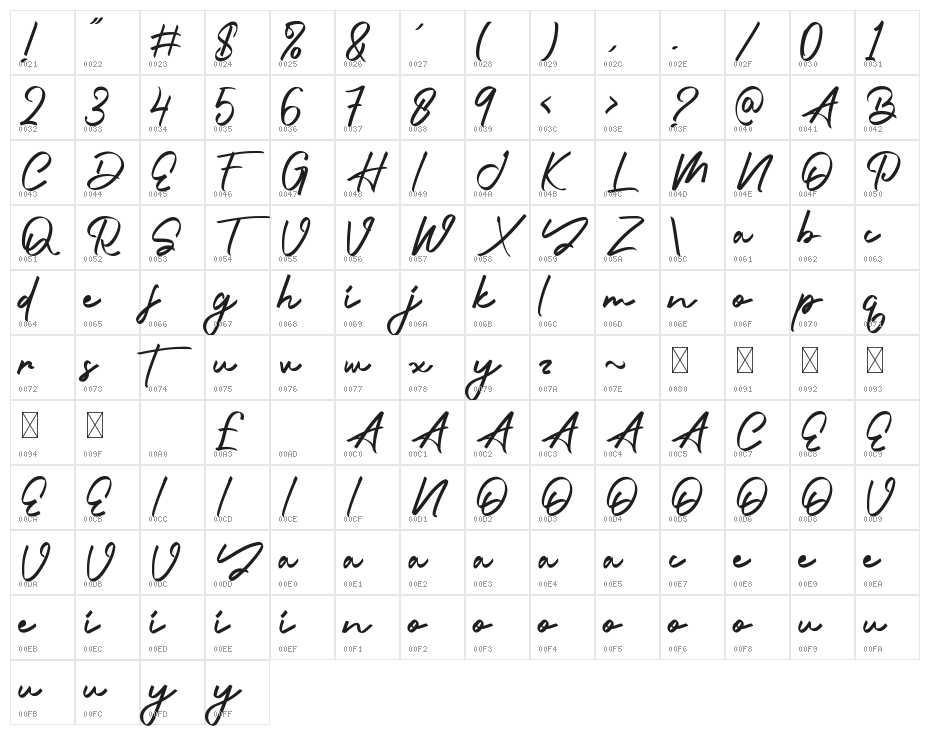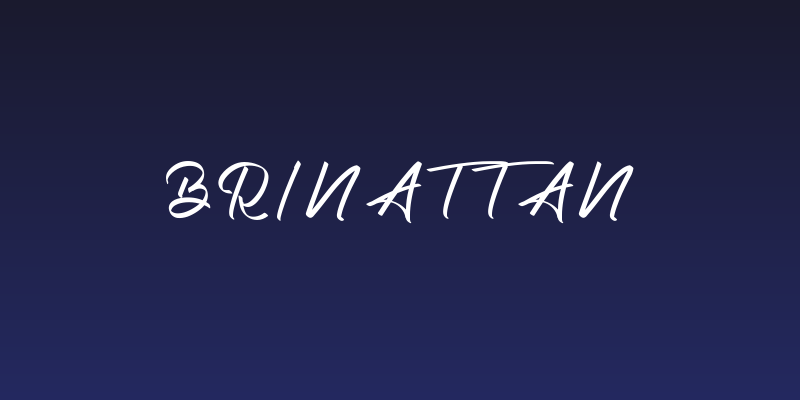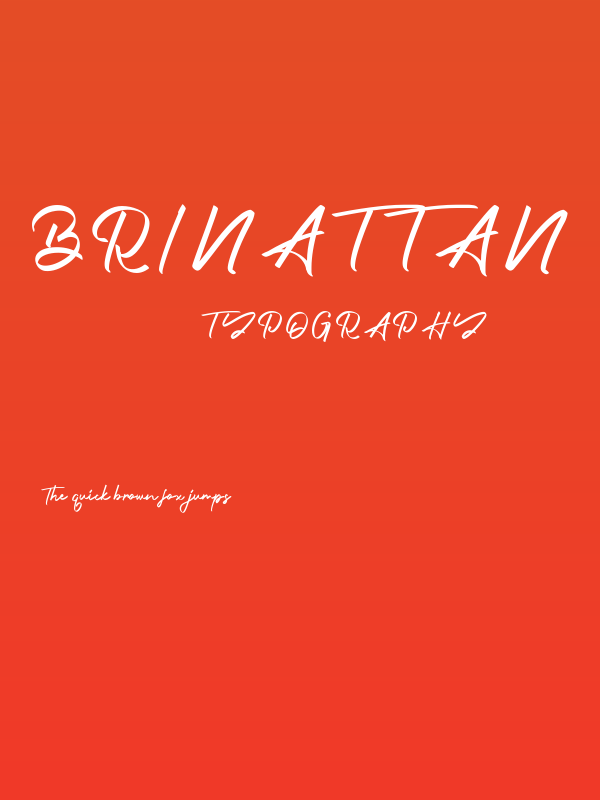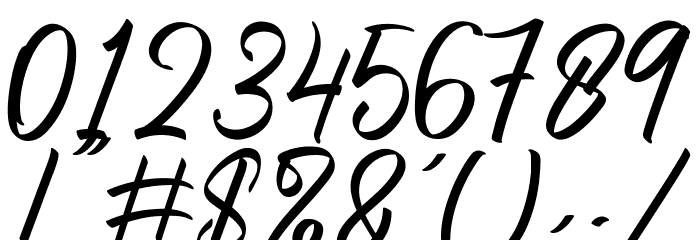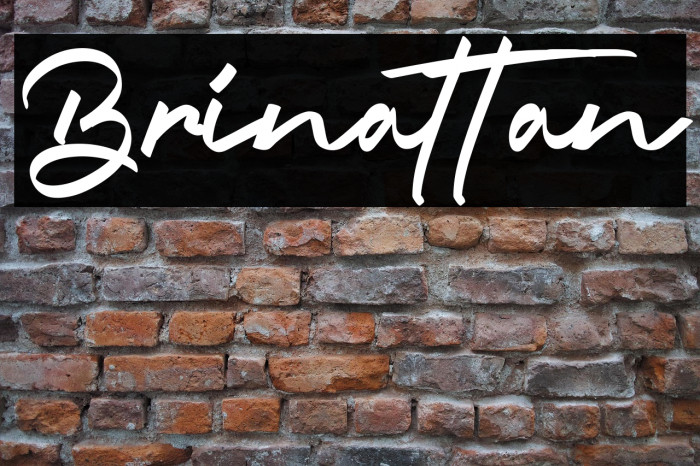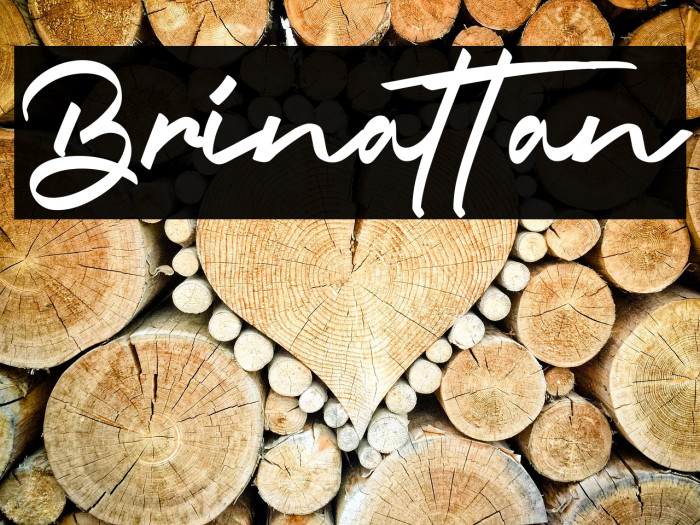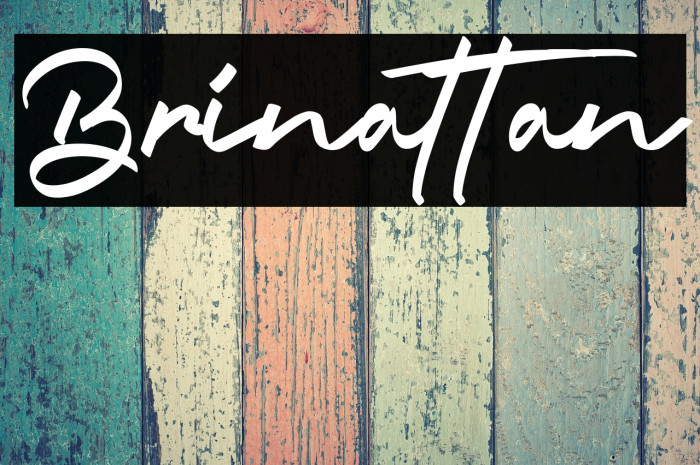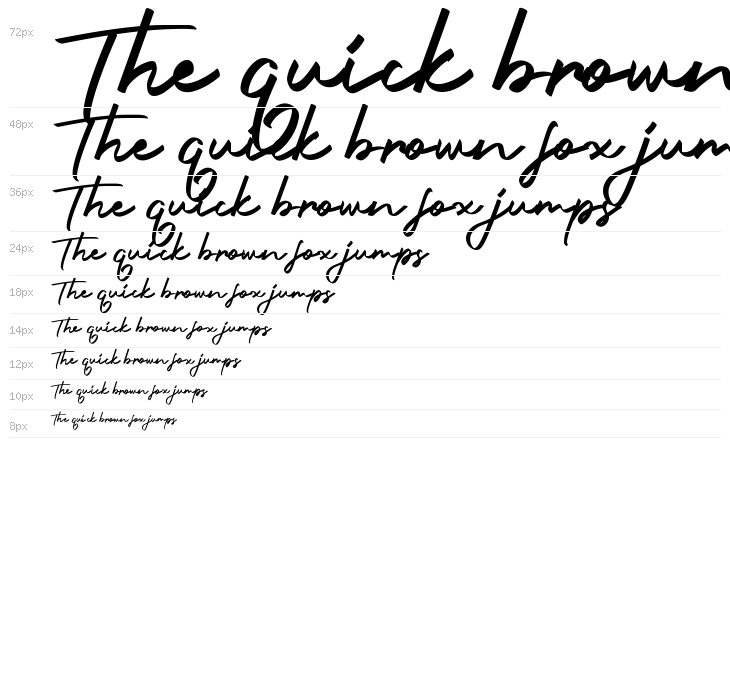
Brinattan Font
Brinattan Description
This font features a dynamic and fluid script style, characterized by its elegant, flowing curves and a handwritten appearance. The uppercase letters exhibit a graceful and slightly italicized form, while the lowercase letters maintain a consistent and harmonious flow. The numerals are designed with a similar fluidity, ensuring a cohesive look across all characters. Special characters are integrated seamlessly, enhancing the font's versatility. The overall design exudes a sense of sophistication and creativity, making it suitable for a variety of artistic and formal applications.